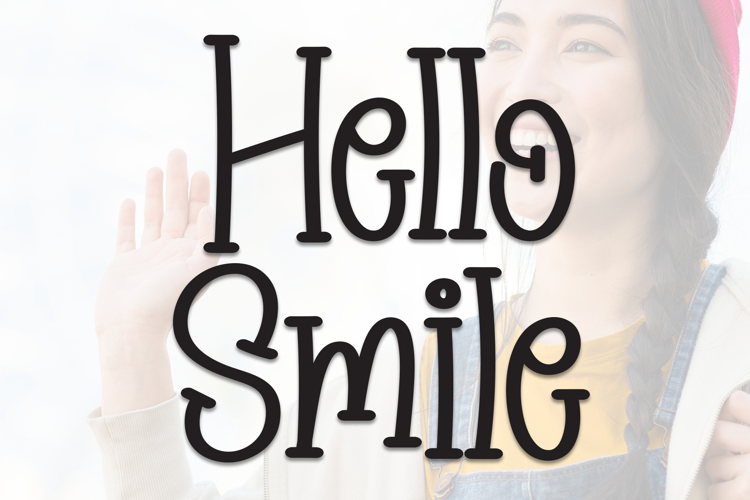
Child Krafter - Quirky Playful Font
Child Krafter - Quirky Font. Child Krafter a super fun and playful hand-lettered bold typeface. Child Krafter is uneven, unexpected, playful font family which puts a smile on your projects and will inspire you to create something fun and memorable
This font is perfect for a professional touch which makes it even more super fun and playful . It is perfect for headings, flyer, greeting cards, product packaging, book cover, printed quotes, logotype, apparel design, album covers, etc.